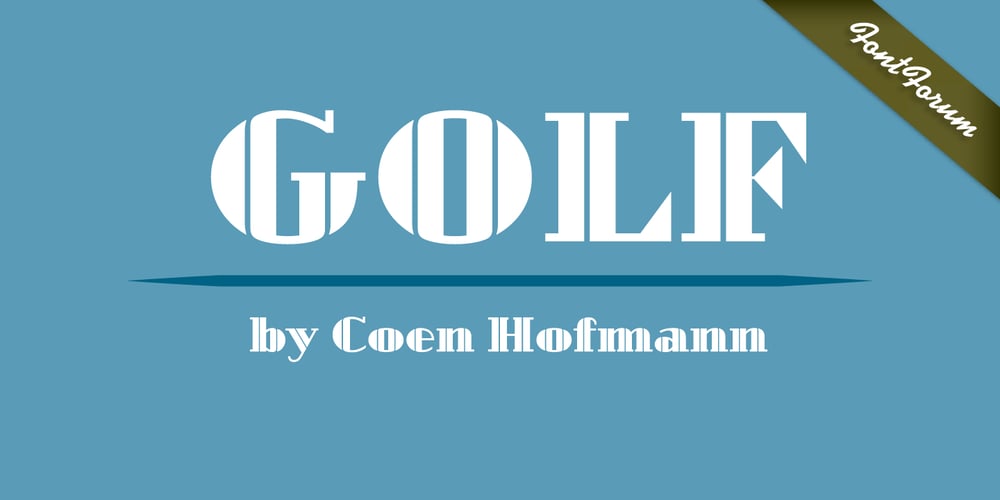
Golf
Golf font
Golf Font Family was designed by Coen Hofmann, Hendrik Möller and published by FontForum. Golf contains 1 styles and family package options. Golf was originally designed by Henry Reinhard Möller in 1935 for Schriftguss KG. Coen Hofmann redrew the capitals and then added lower case letter and Cyrillic alphabets by himself. This digital version of the original typeface is best used in sizes above 24 points.